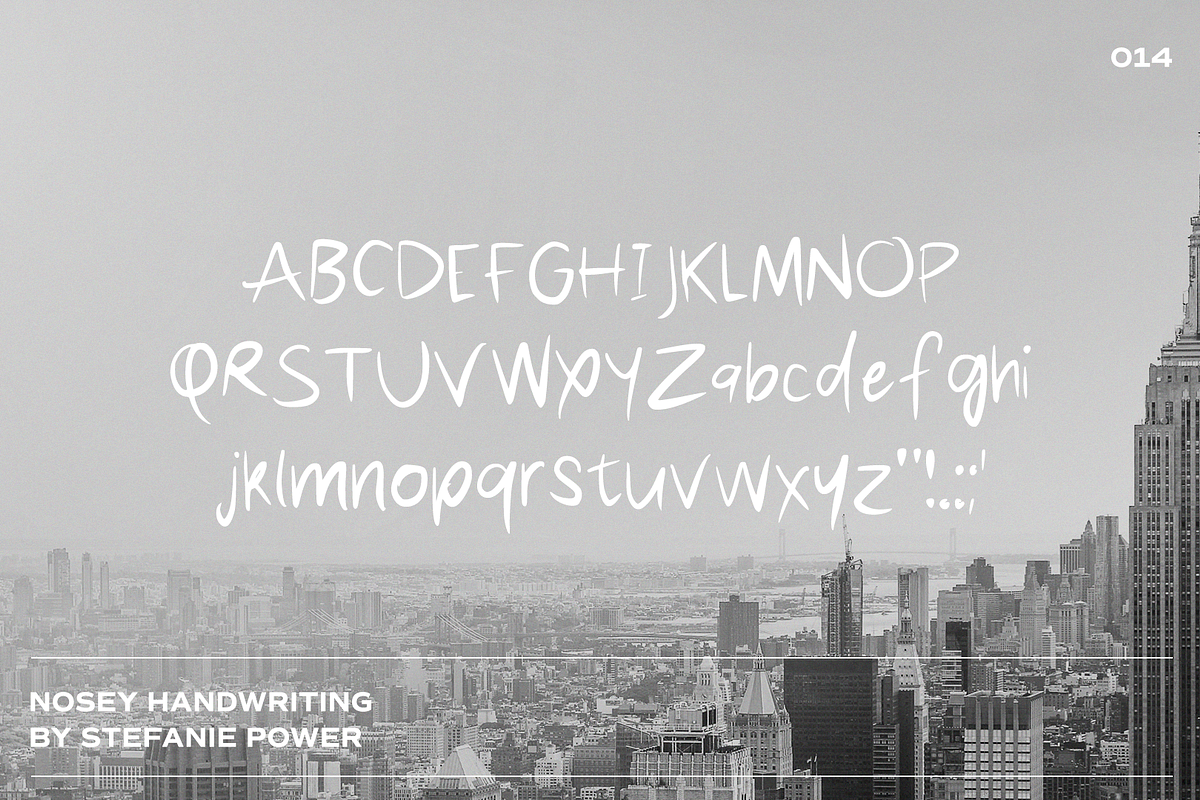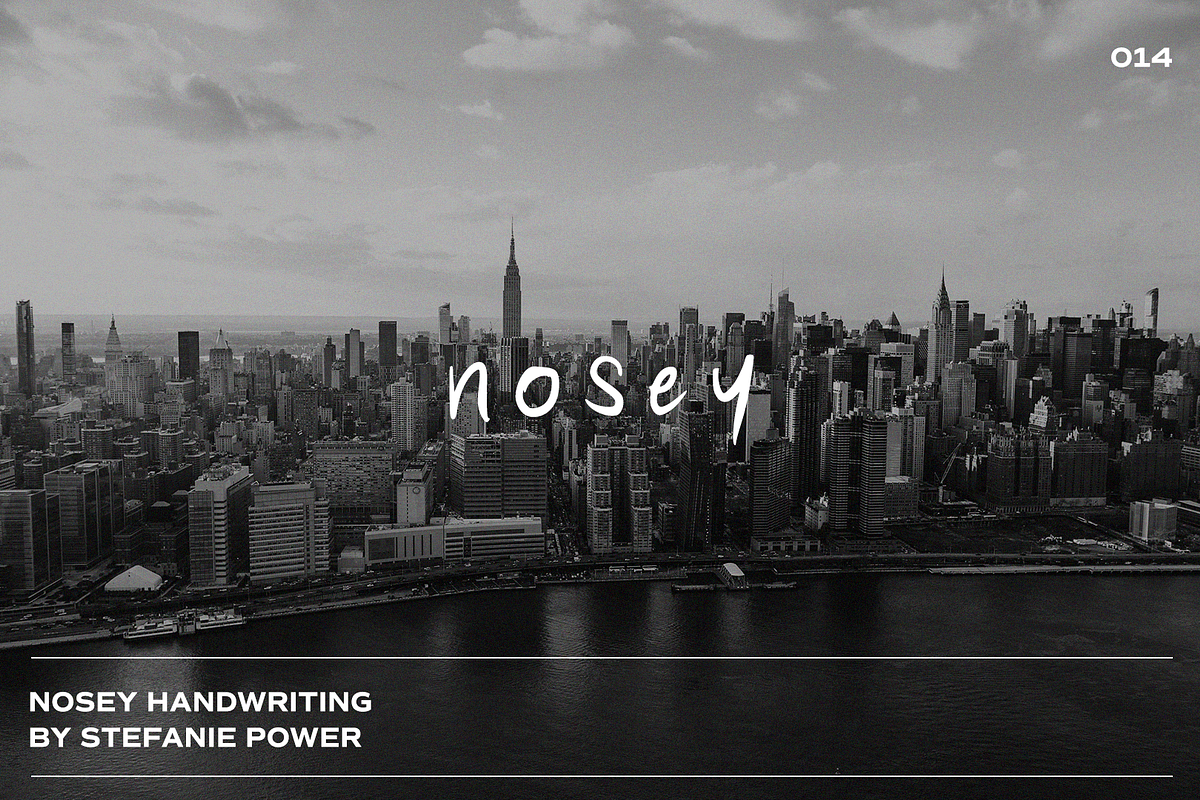
Nosey Handwriting | Font
Introducing 'Nosey' - perfect for when you need a realistic looking, messy handwriting font.
Nosey Handwriting • A handwritten script font containing upper & lowercase characters and a range of punctuation and numbers.